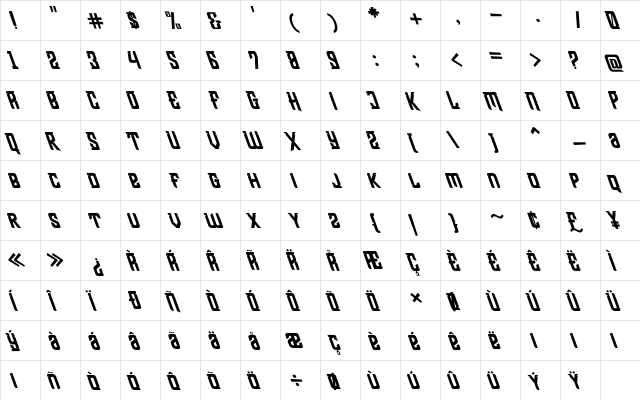
Shean Holmes Oblique Regular
Design Context for Shean Holmes Oblique Typeface
Shean Holmes Oblique is a composed and adaptable typeface that performs quietly and consistently across a wide range of design contexts. The dynamic lean of this cut emphasises speed and emphasis in any layout.
Pro Tip: Try Shean Holmes Oblique for annotation and caption copy alongside an upright companion — the contrast in angle creates a dynamic but ordered typographic system.